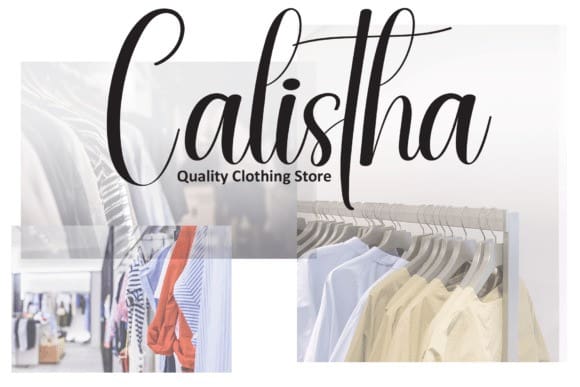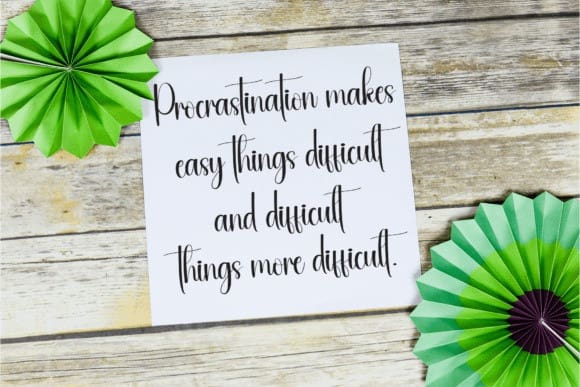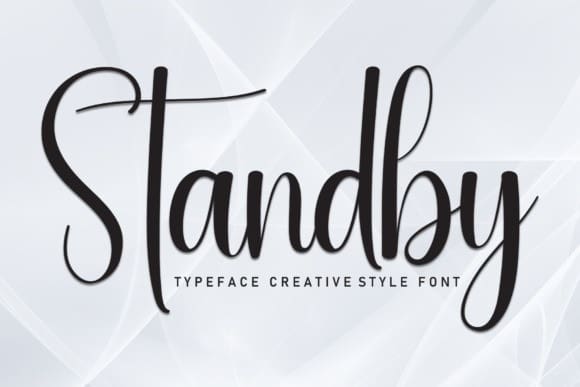
Standby Script Font
Standby Script Font is a sweet and friendly handwritten font. Fresh and cute, this font is ideal for writing wedding invitations, cards, or any other design that might need a fun touch!